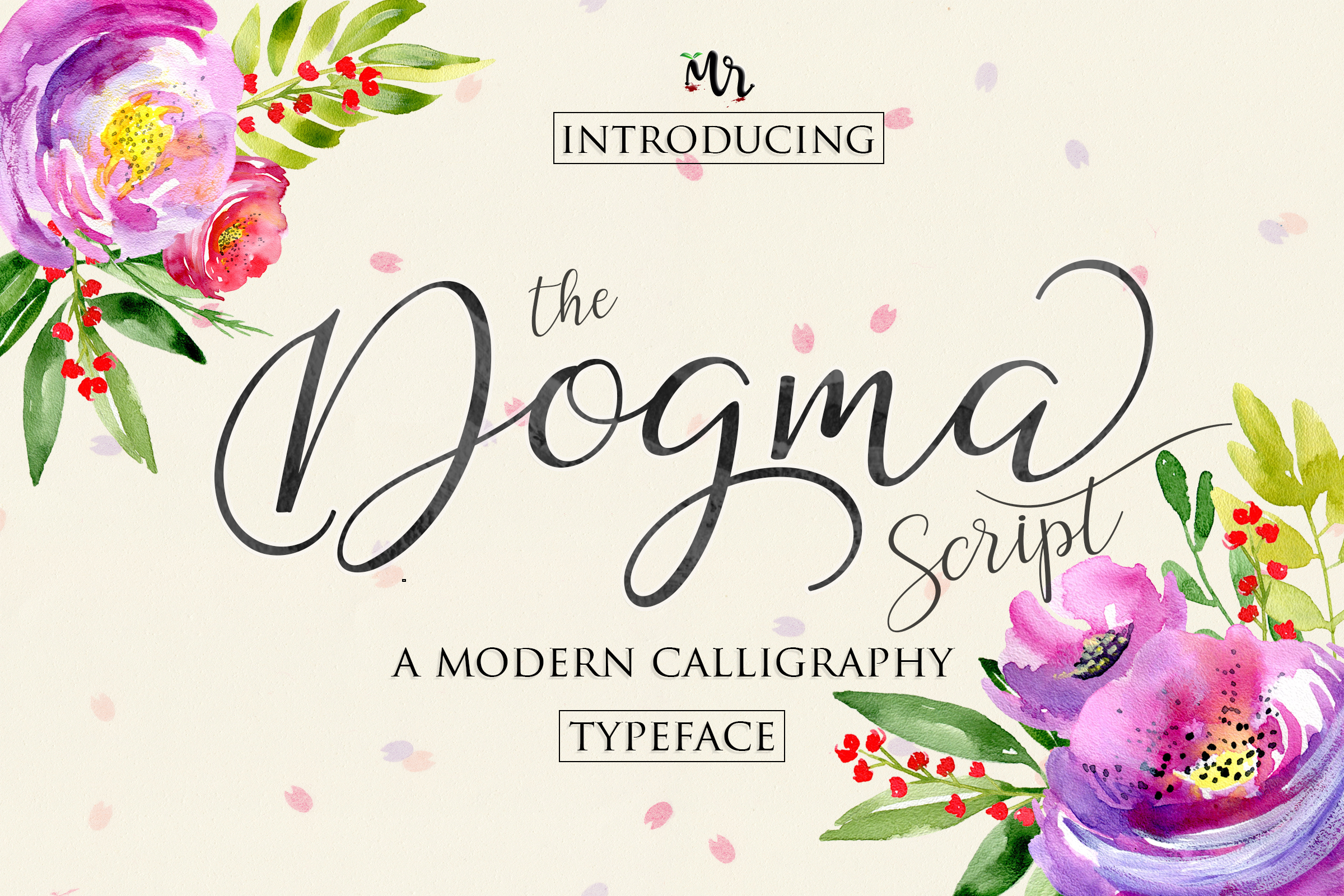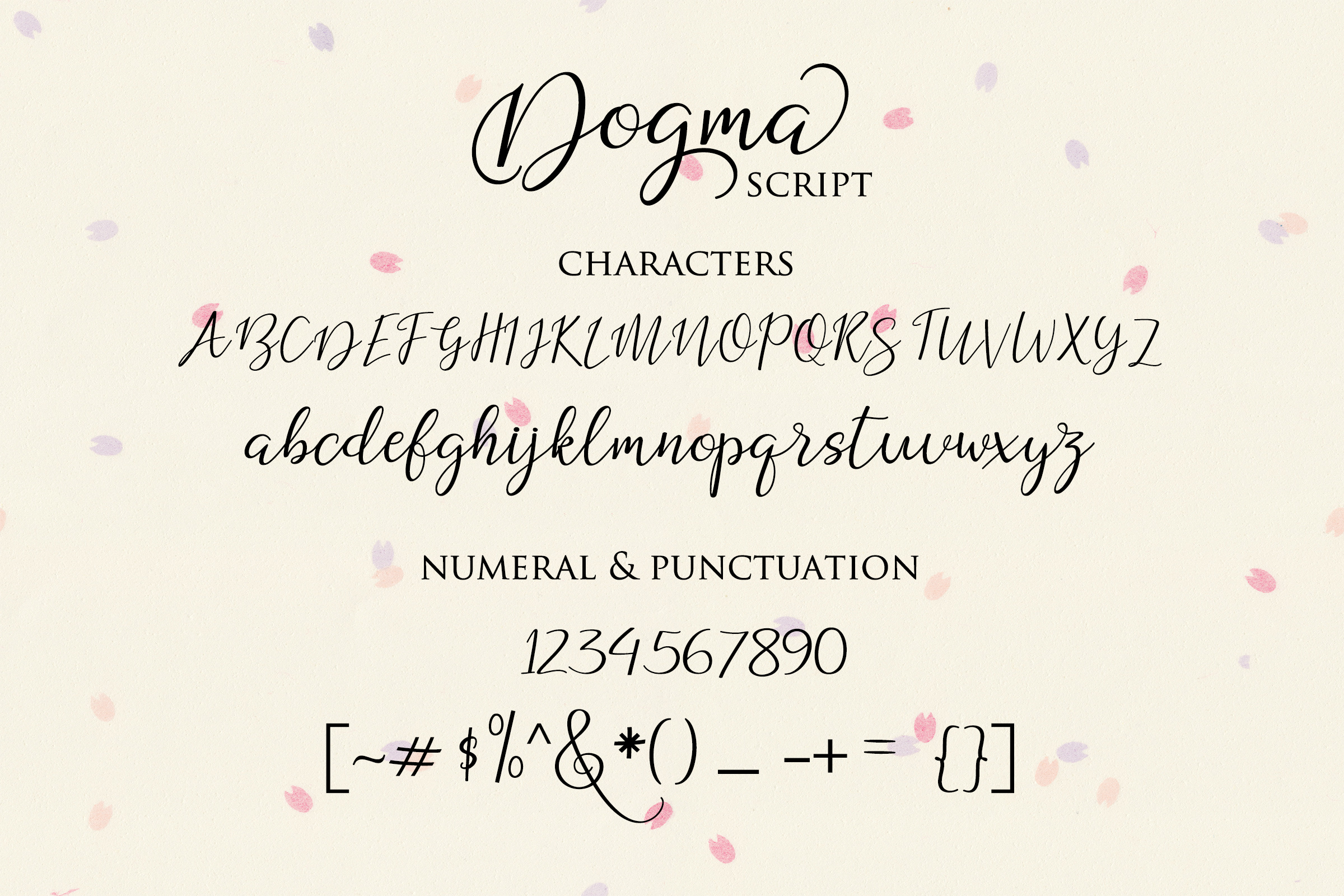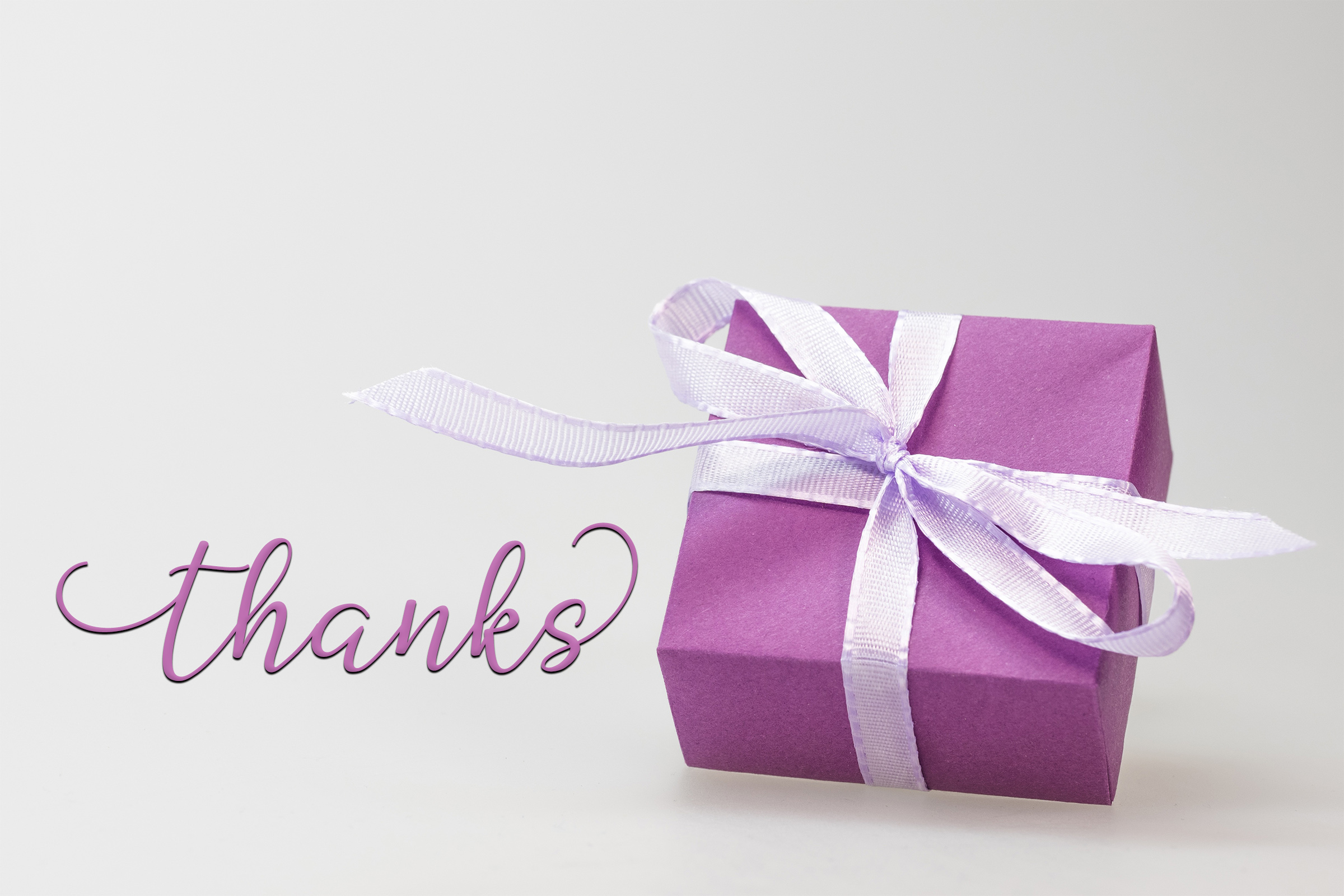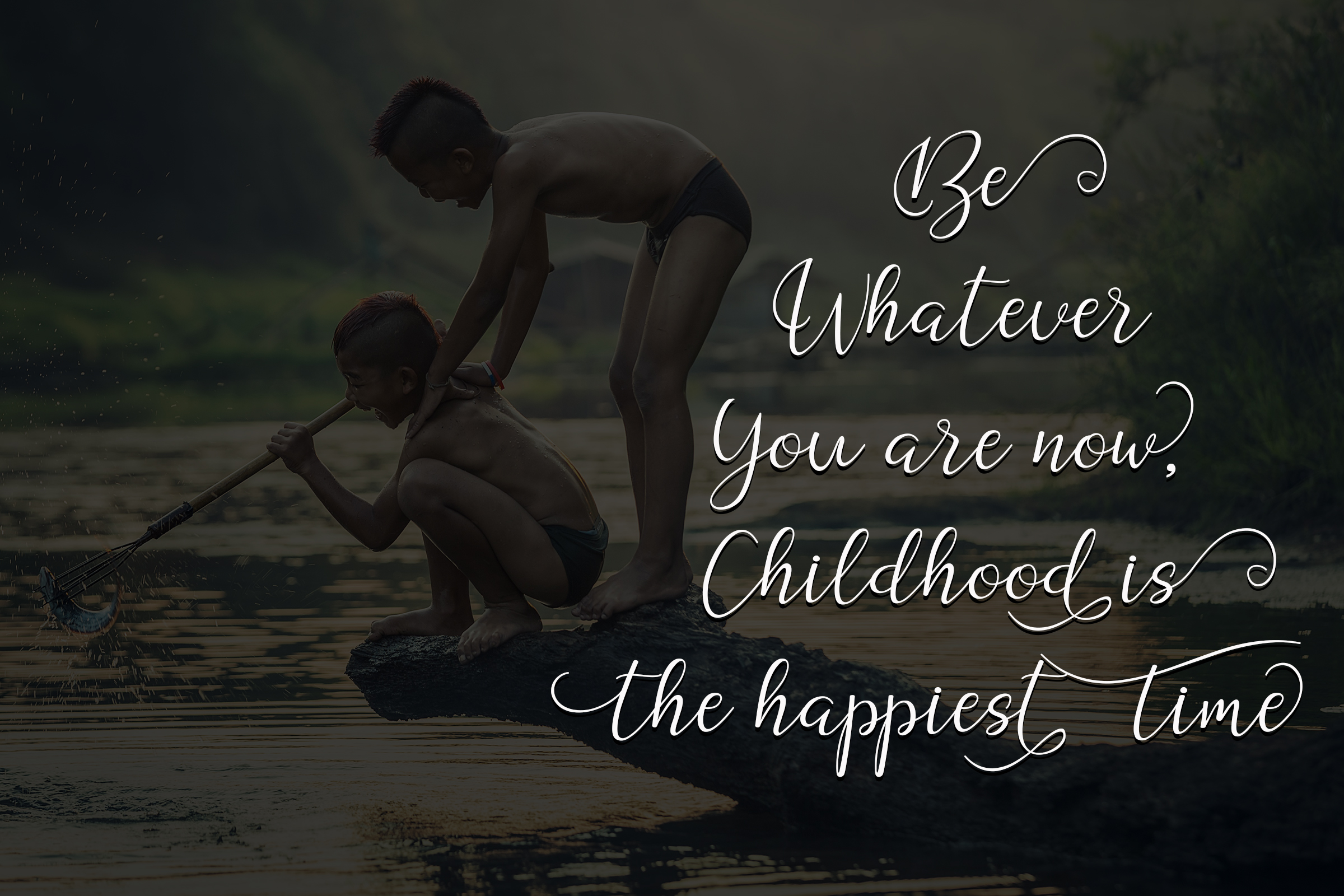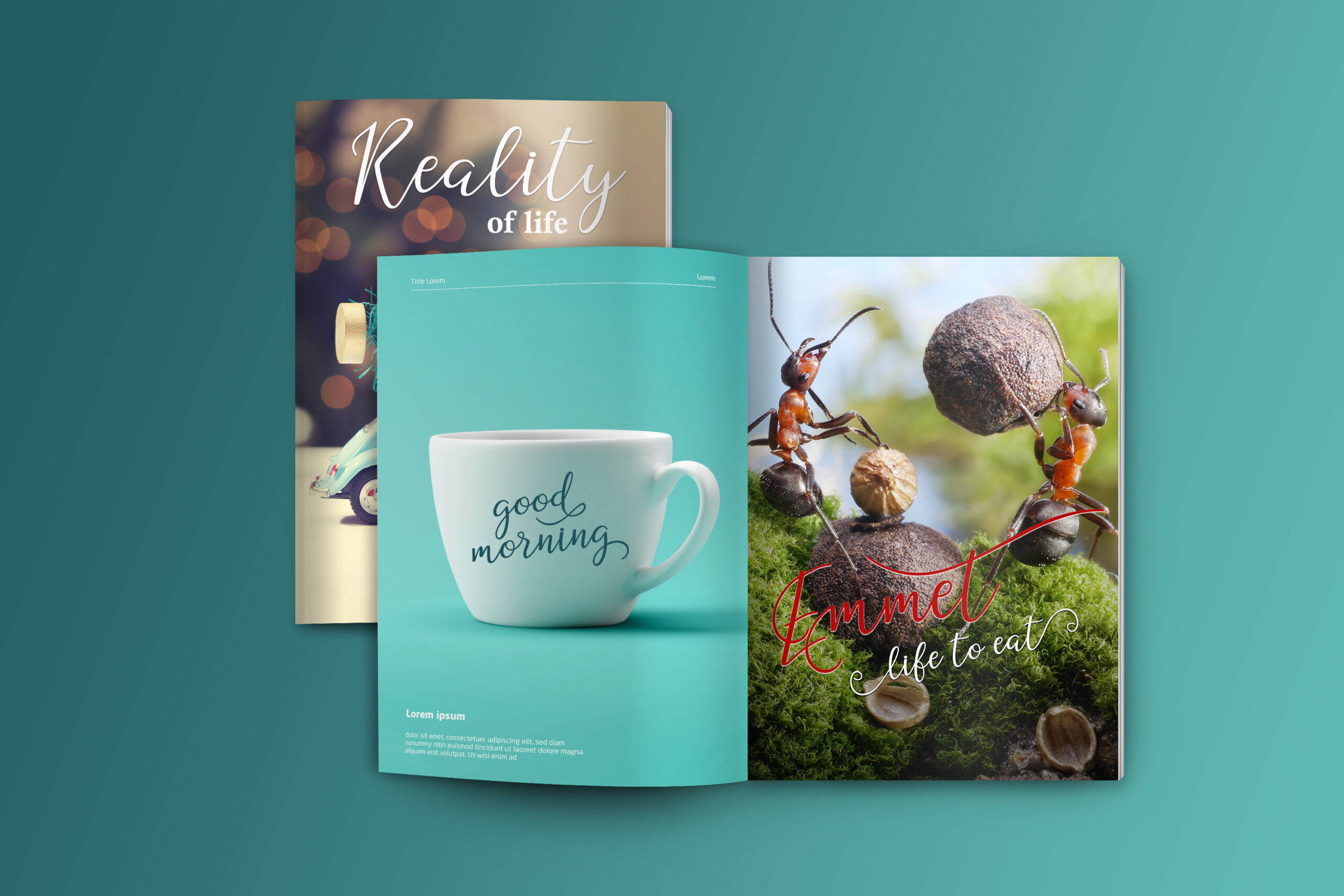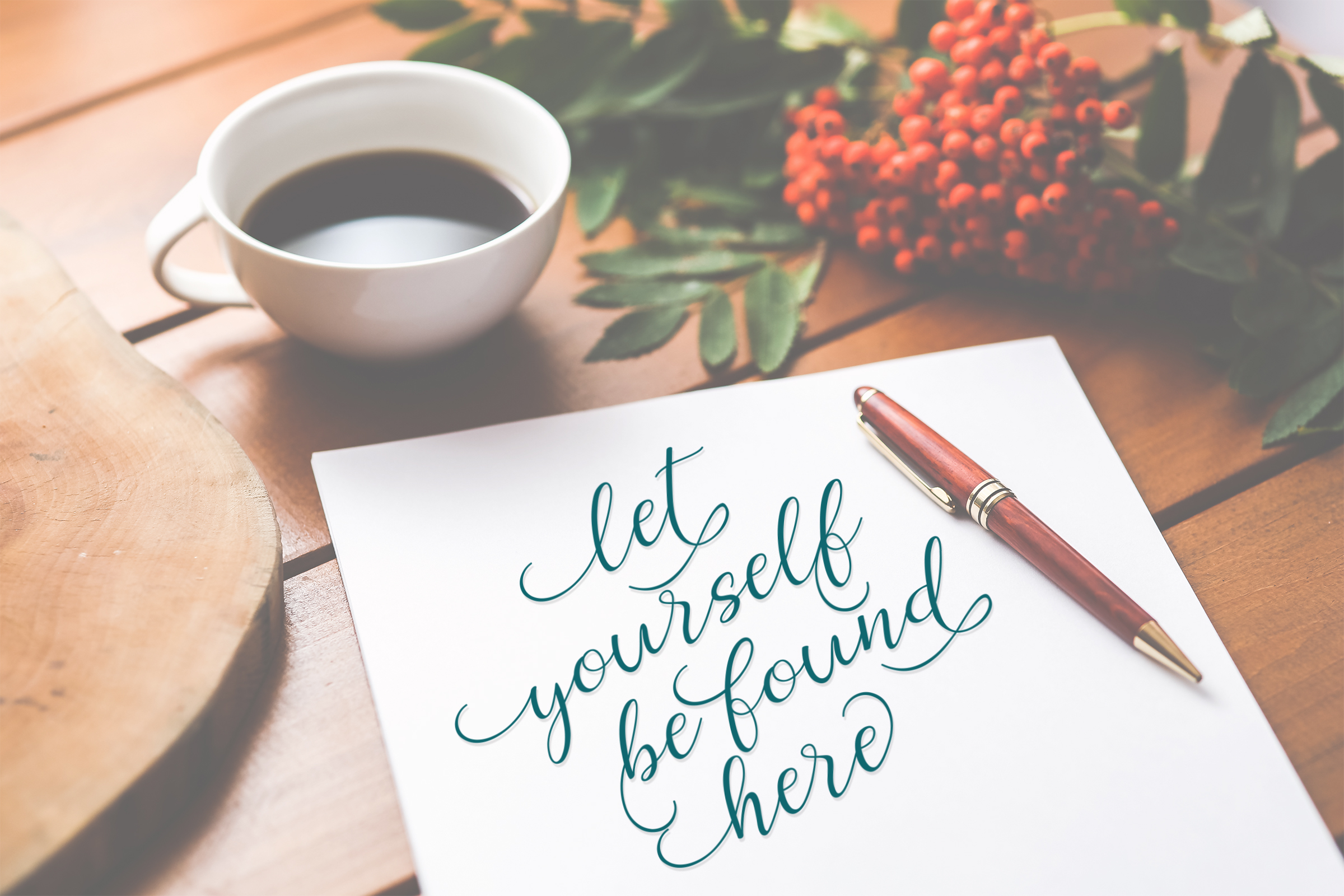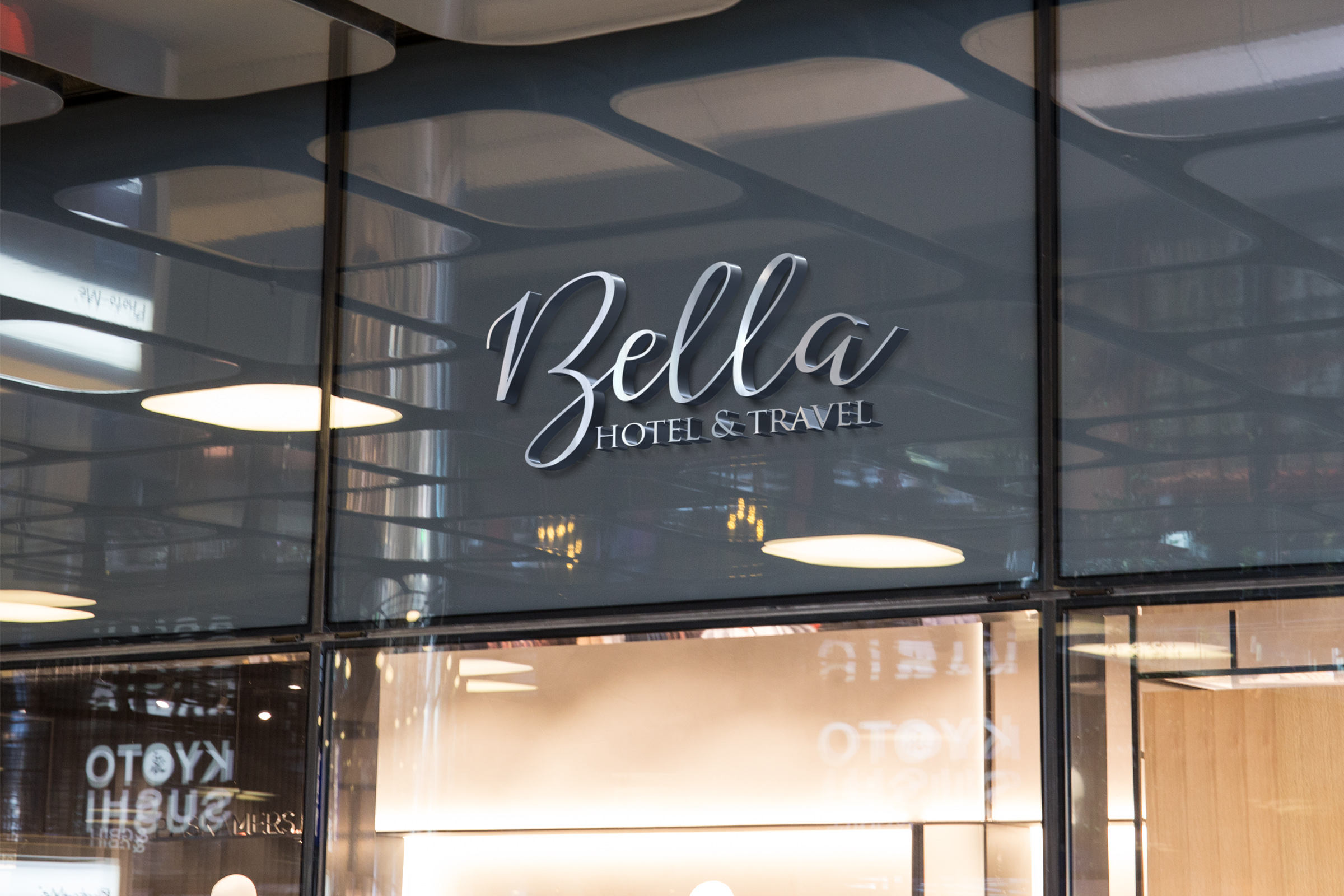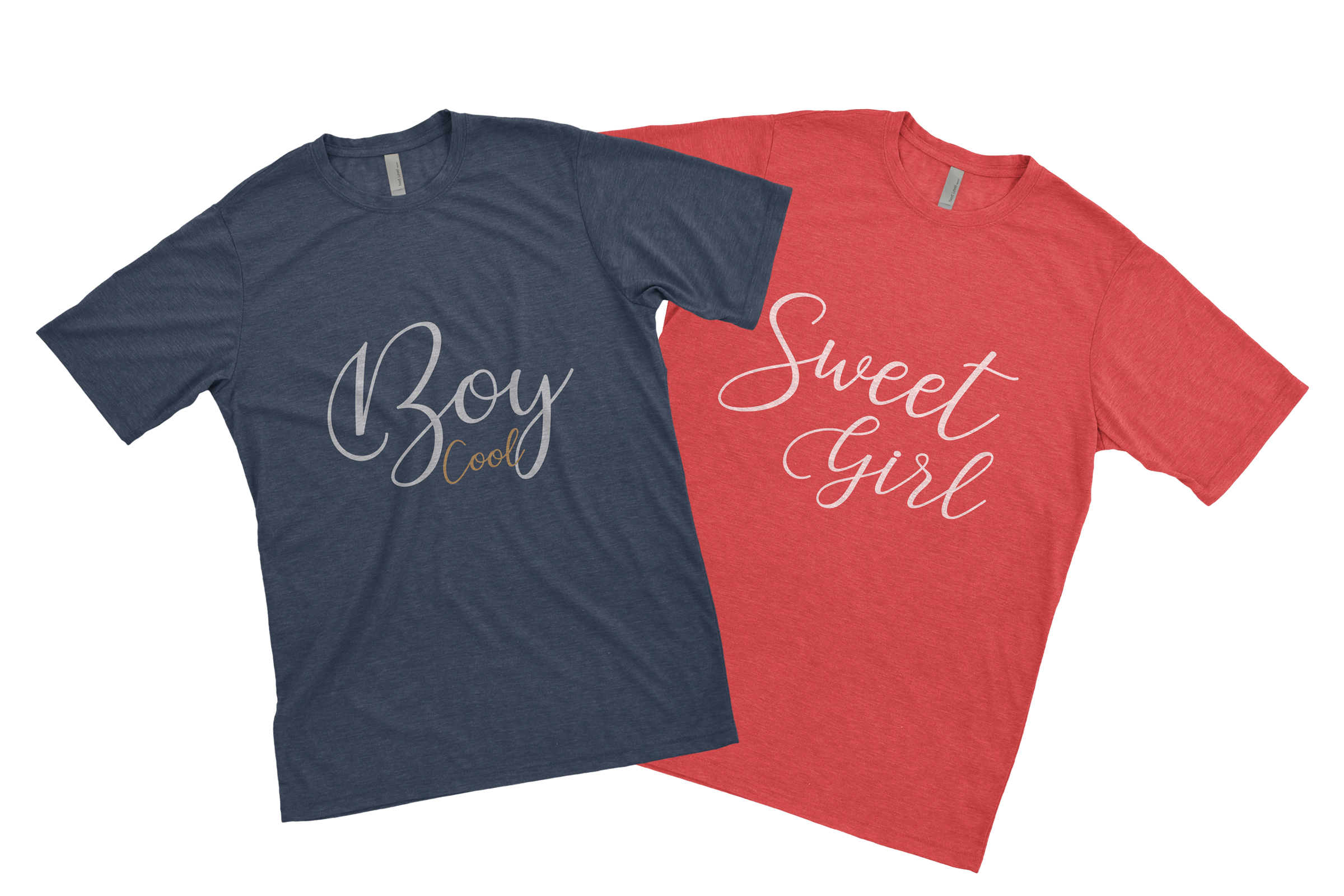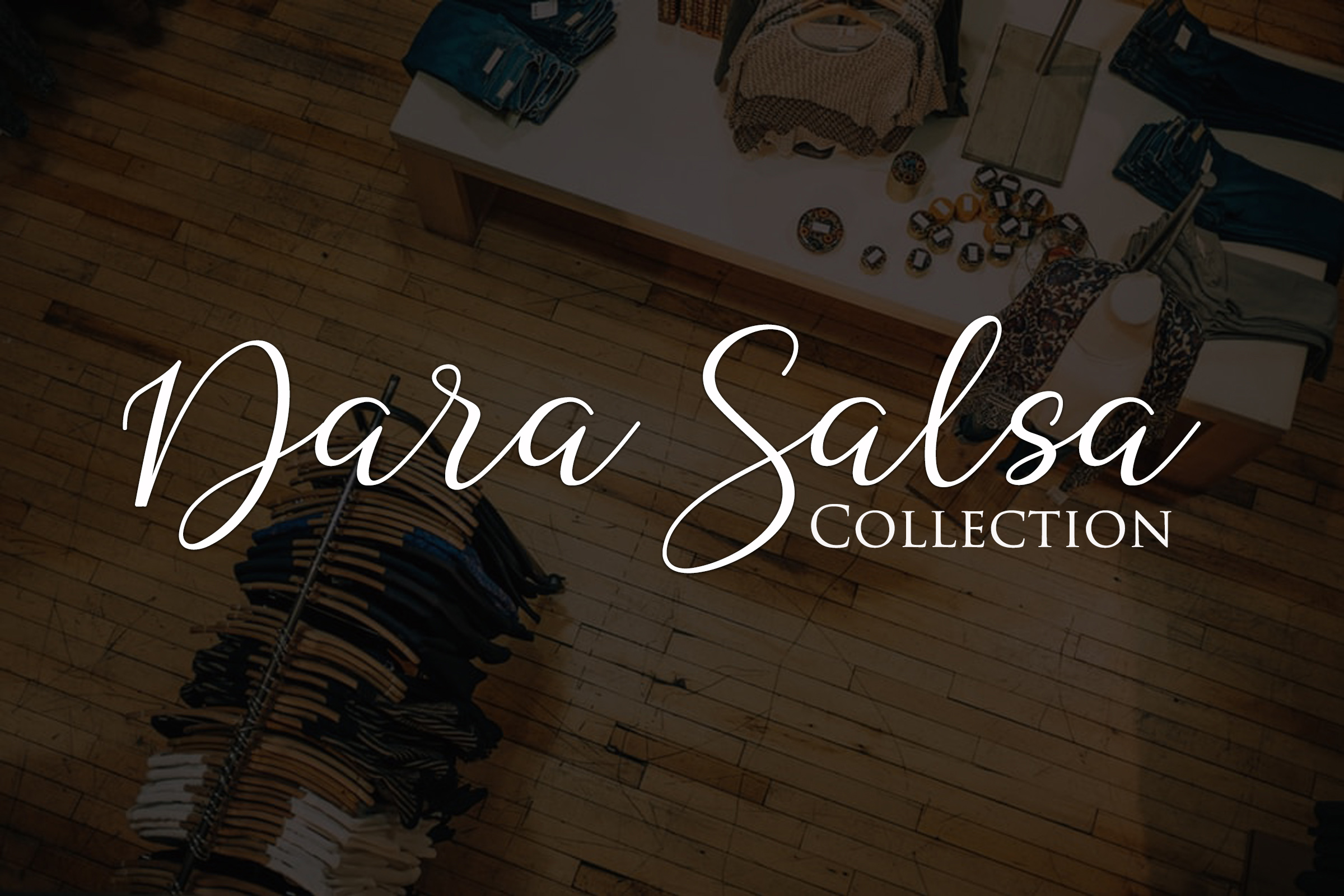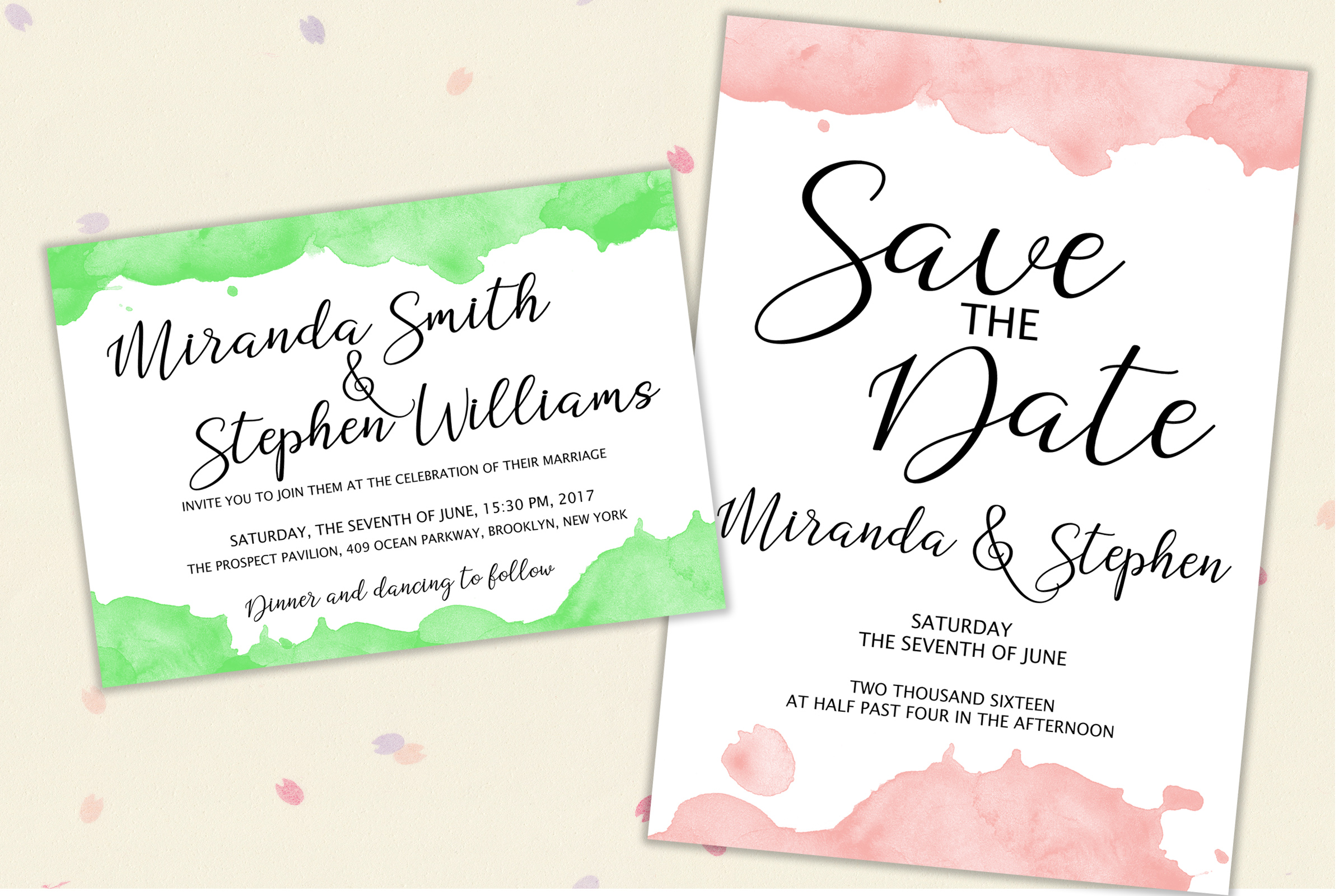
HomeScript FontsDogma Script Font Script Fonts Dogma Script Font FacebookXPinterestWhatsApp Dogma Script Font Poster 2 Dogma Script Font Poster 3 Dogma Script Font Poster 4 Dogma Script Font Poster 5 Dogma Script Font Poster 6 Dogma Script Font Poster 7 Dogma Script Font Poster 8 Dogma Script Font Poster 9 Dogma Script Font Poster 10 Dogma Script Font Poster 11 About Dogma Script Font Dogma is an elegant, fluid handwritten script. This stunning font is packed with extra swashes. DOWNLOAD ON CREATIVE FABRICAThis font is sold and delivered by Creative Fabrica. Font Canyon may earn a commission if you buy through this link. People also explored Winter Night Font Forbiden Font Output Volume Valkyrian Goddess Duo Font Your Month Font Winter Snowy Font Cerlyneeta Font Dreamtimes Font Bliss Sureal Font 265 0 TagsDogma Script Font Previous articleStea FontNext articleChesan Font LEAVE A REPLY Cancel reply Comment: Please enter your comment! Name:* Please enter your name here Email:* You have entered an incorrect email address! Please enter your email address here Website: Save my name, email, and website in this browser for the next time I comment. Personal Use Free Anti Personal Use Free Read more about this font Cleopatra Font Personal Use Free Read more about this font Rina Personal Use Free Read more about this font Stereofidelic Personal Use Free Read more about this font BLOG Using Fonts in Digital Marketing: Tips to Strengthen Your Brand Identity In the realm of digital marketing, every visual element plays a crucial role in shaping a brand's identity, and fonts are no exception. The... Best Fonts for T-Shirt Design – Top 2025 Picks Modern Sans-Serif Fonts That Brands Love in 2025 Top 7 Google Fonts Alternatives for Faster and Privacy-Friendly Web Design (2025)